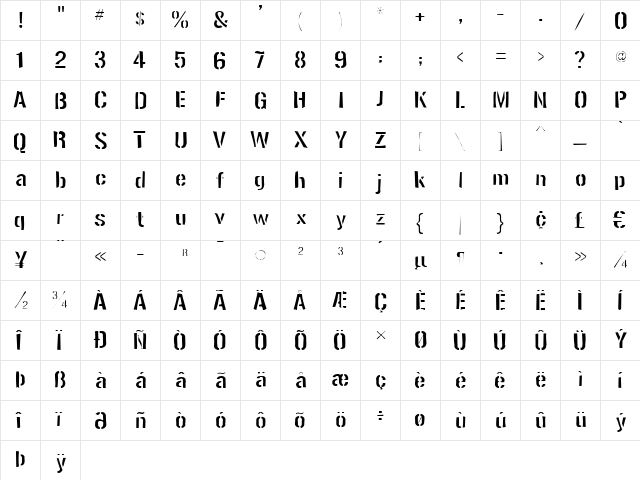
Gunplay Gaunt Regular
| Designer | Ray Larabie - Larabie Fonts |
Design Context for Gunplay Gaunt Typeface
Gunplay Gaunt is a composed and adaptable typeface that performs quietly and consistently across a wide range of design contexts.